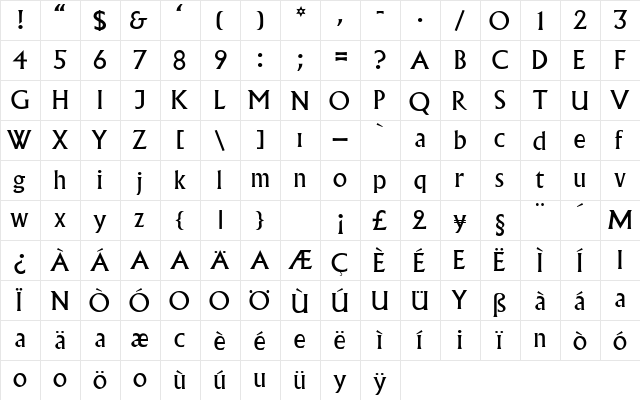
Furioso Regular Font Preview
Furioso Regular
Furioso Regular Font Details
Design Context for Furioso Typeface
Furioso takes a measured approach to typography — its balanced proportions and neutral character make it a reliable workhorse for both digital and print work.
Pro Tip: Use Furioso in both headline and body roles to test its range before committing to a single application.